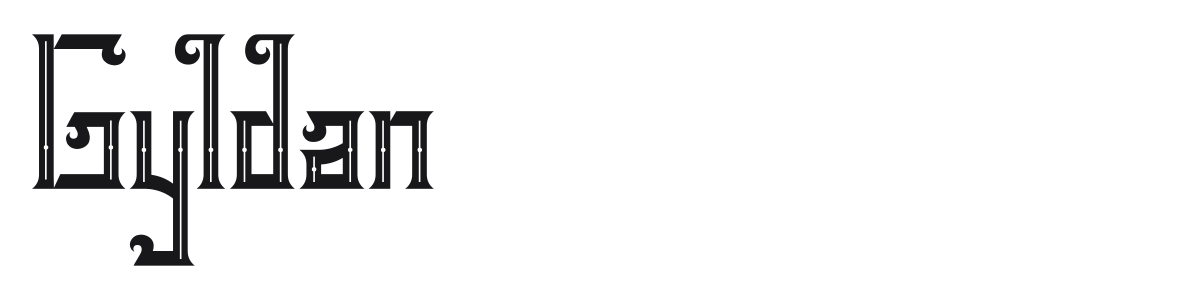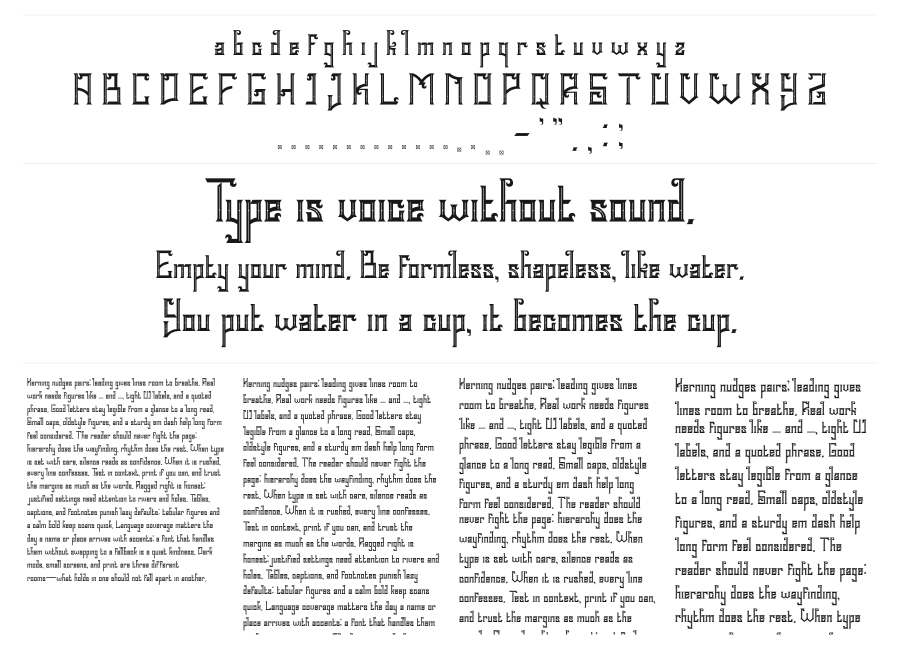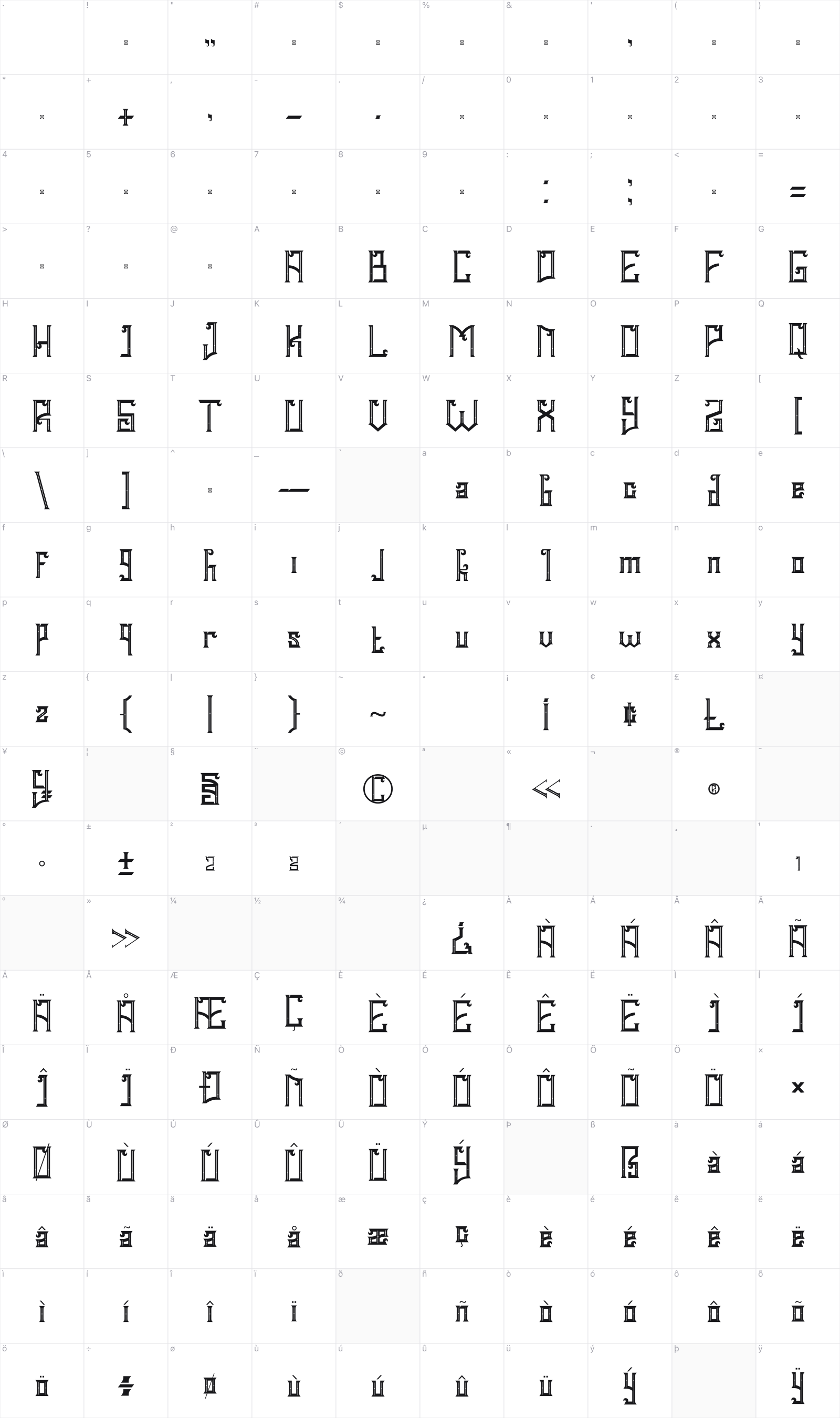
Gyldan
Gyldan is a condensed gothic blackletter with dramatic tall proportions and an eye-catching inline detail running through the main stems. Curled terminals on ascenders and descenders add a flourished, heraldic quality that pushes it toward the ornate end of the blackletter spectrum. Strong character for music branding, fantasy titles, and editorial headlines.